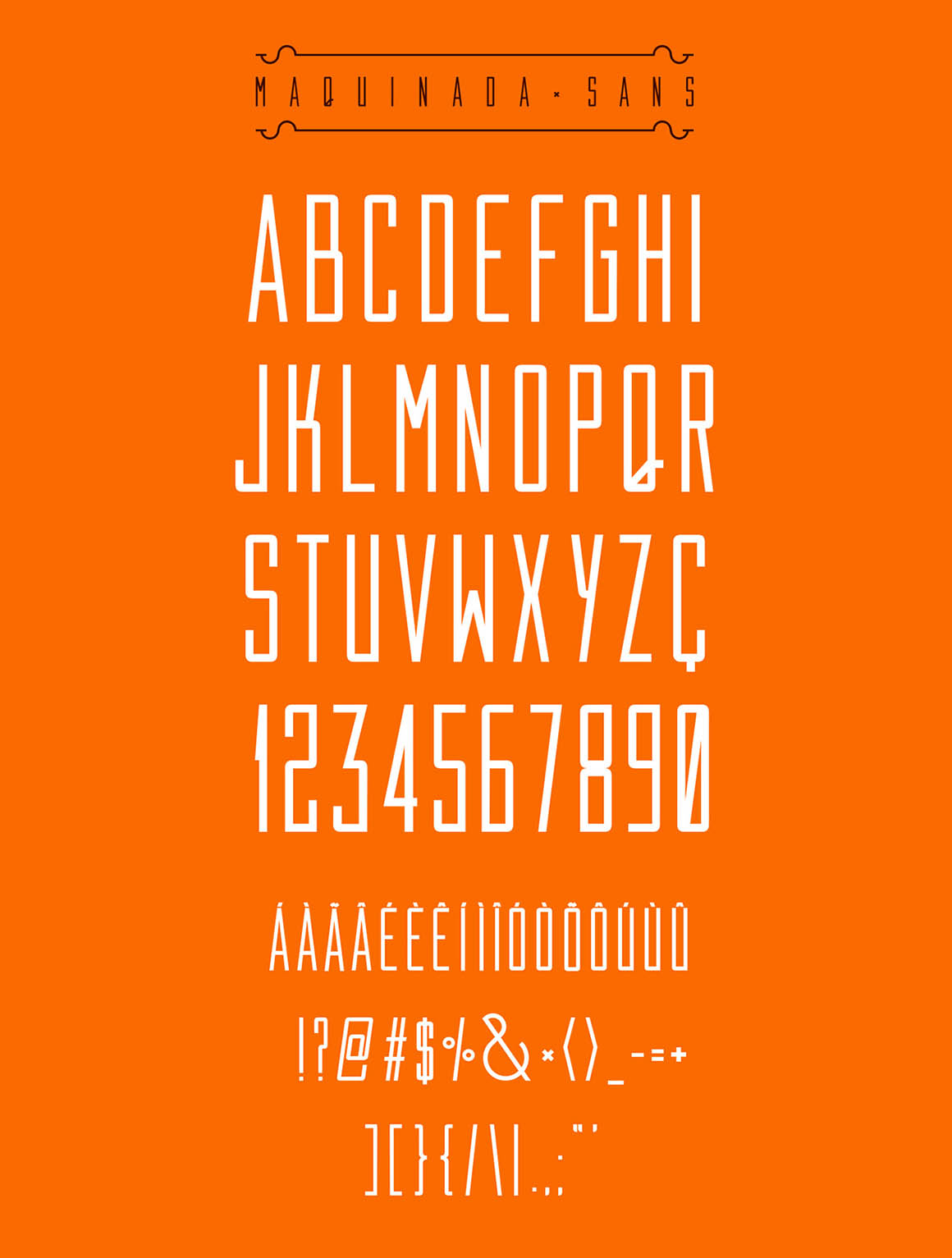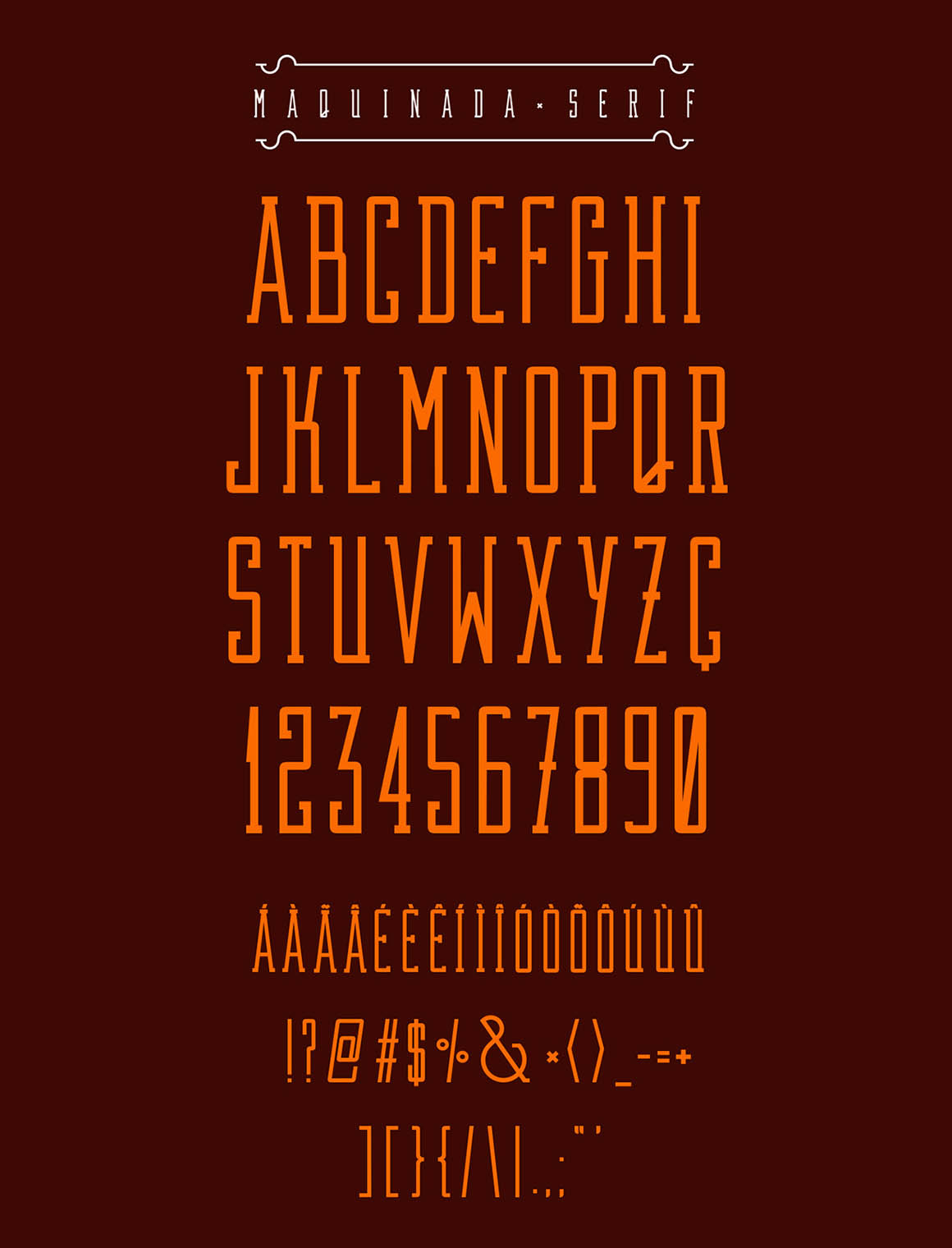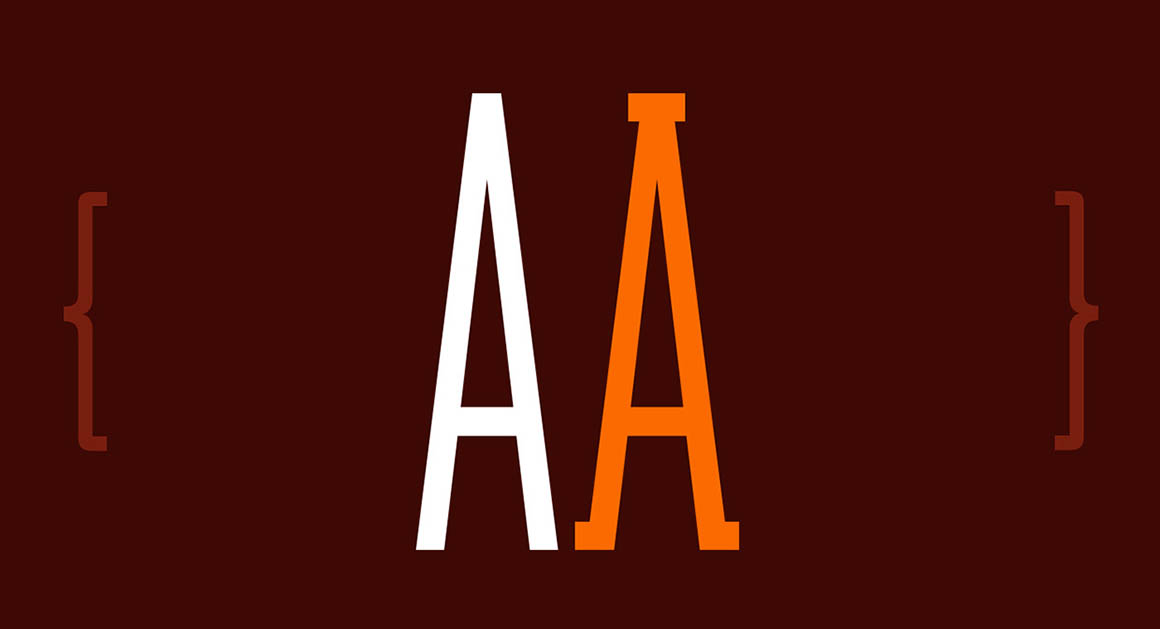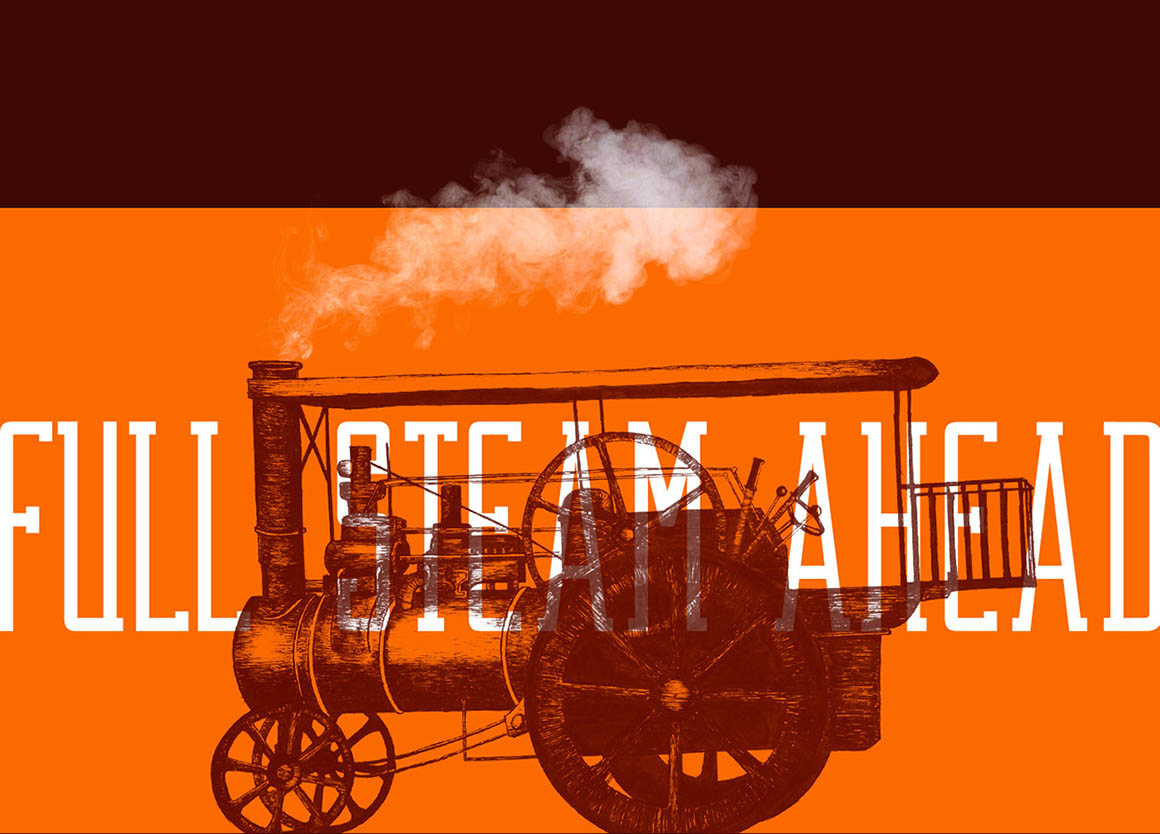
Maquinada Sans & Serif – Free Font
This clean modern sans serif font is from Henrique Mantovani Petrus & Gustavo André. Great for your new creative projects. Download and enjoy 😉